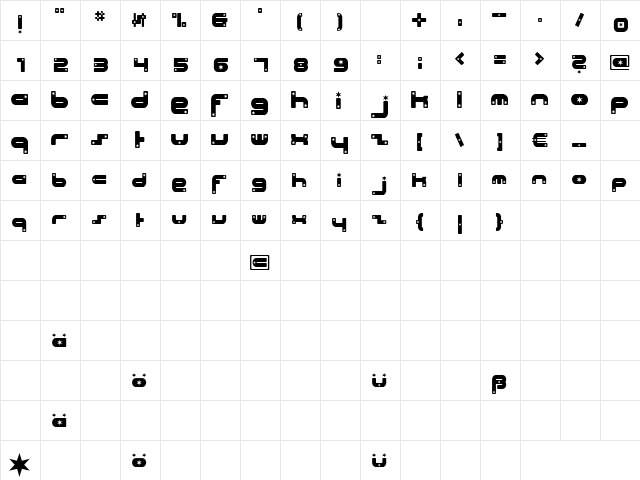
Beach House stars Regular Font Preview
Beach House stars Regular
Design Context for Beach House stars Typeface
Beach House stars is a composed and adaptable typeface that performs quietly and consistently across a wide range of design contexts.